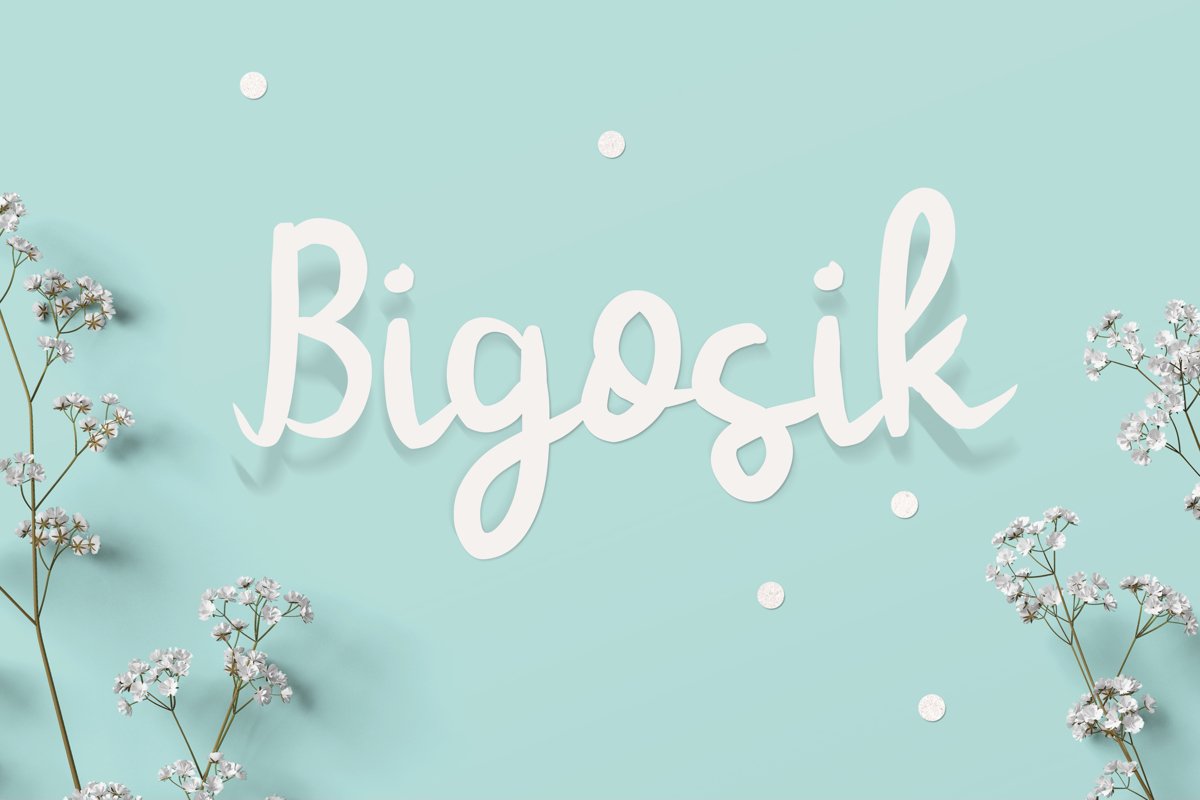
Bigosik Font
Bigosik
Bigosik is a simple and cheerful handwritten font. Its neat and flowing style makes this font particularly adept to a wide variety of designs.